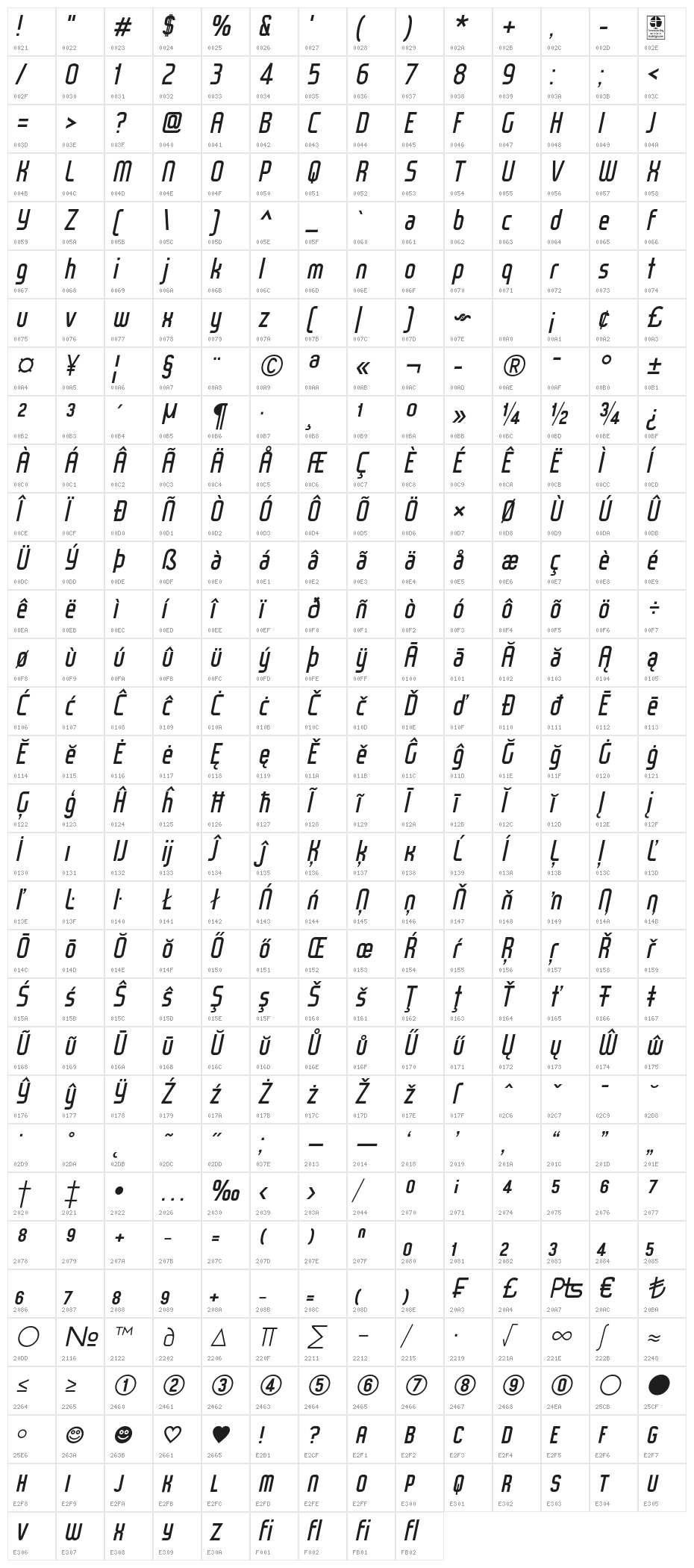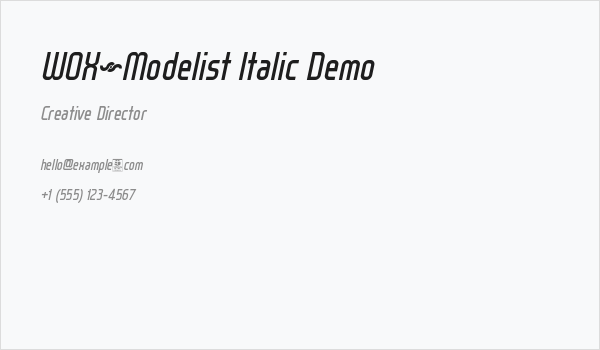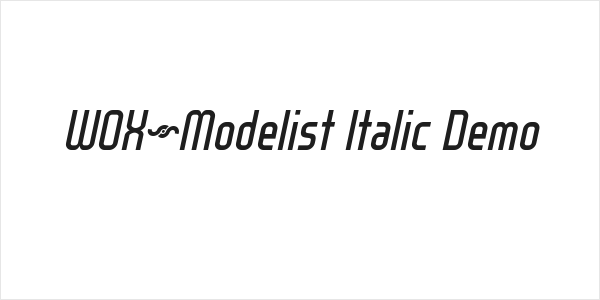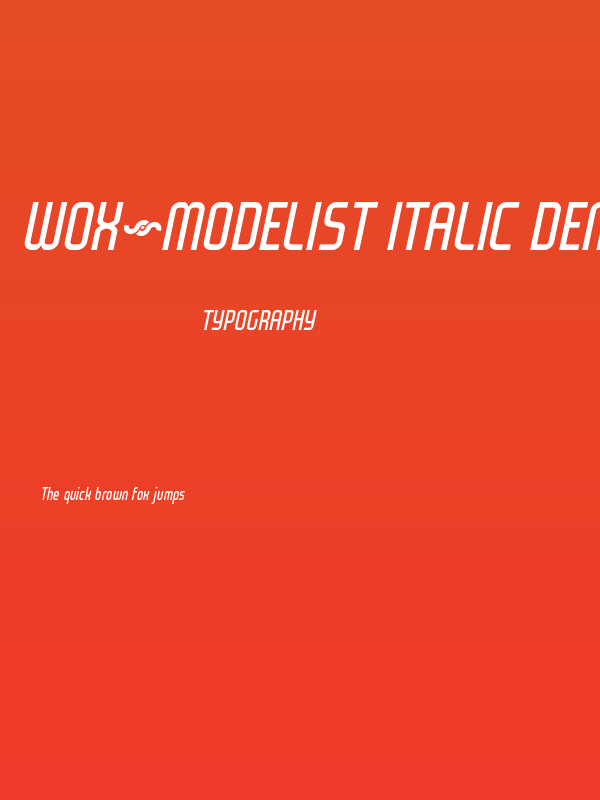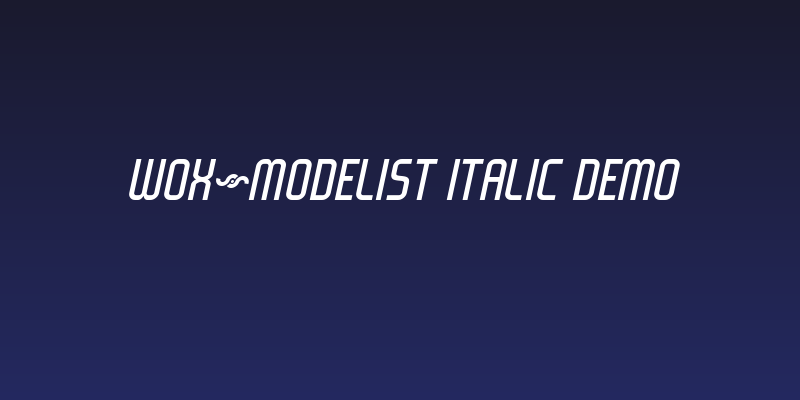
WOX~Modelist Italic Demo Font
WOX~Modelist Italic Demo Description
This font features a sleek, modern design with a distinct italic slant, giving it a dynamic and forward-moving appearance. The characters are slightly condensed, enhancing the streamlined look. Each letter is crafted with precision, showcasing uniform stroke widths that contribute to a harmonious and balanced aesthetic. The uppercase and lowercase letters maintain a consistent style, while the numerals are clear and easy to read. Special characters are well-integrated, ensuring versatility in various design contexts. The overall impression is one of sophistication and contemporary flair, making it suitable for a wide range of applications.
| Proposed Projects | Ideal for branding, advertising, and editorial design projects that require a modern and sophisticated touch. |